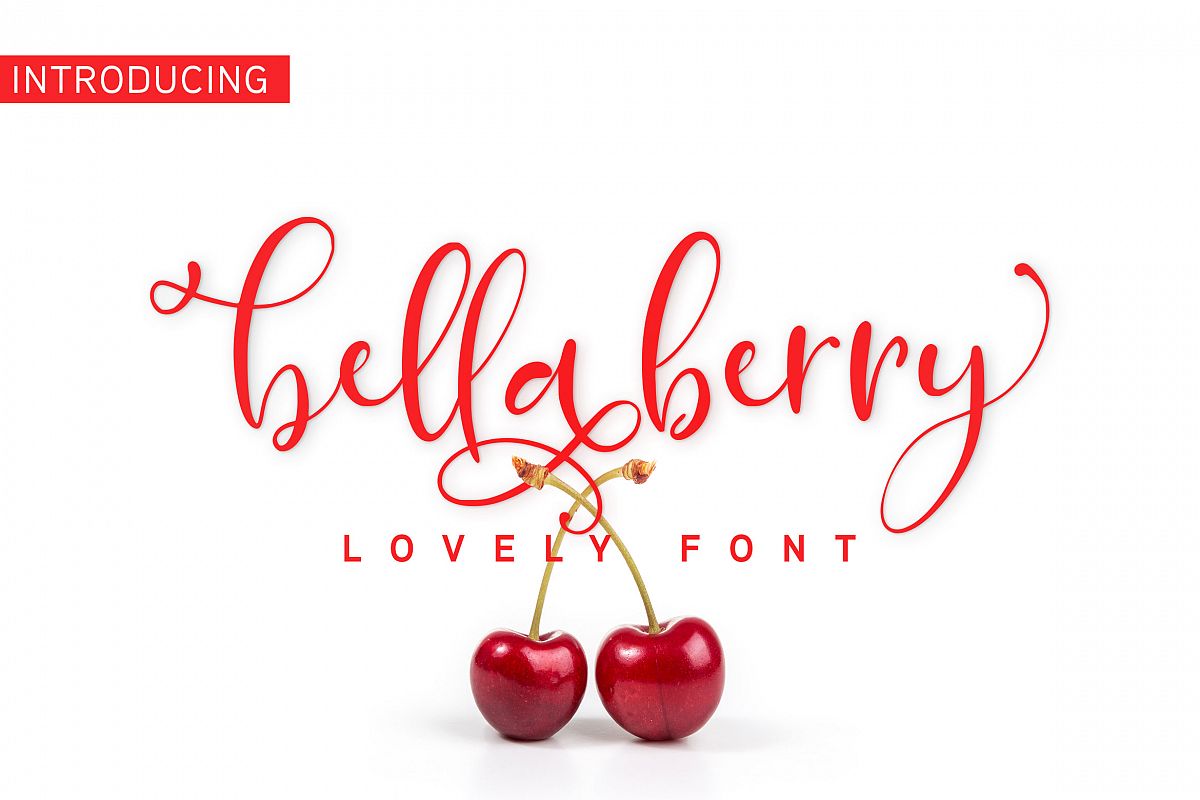
BellaBerry Lovely Script Font
BellaBerry Lovely Script Font set of lovely uppercase and lowercase letters, multilingual symbols, numerals, punctuation and ending lowercase swashes. is perfect fo you up coming projects. such as modern invitation design, branding stationery design, wedding, birthday, qoute, craft, etc and any projects.